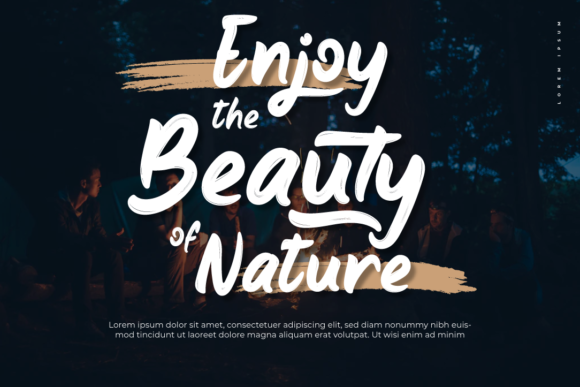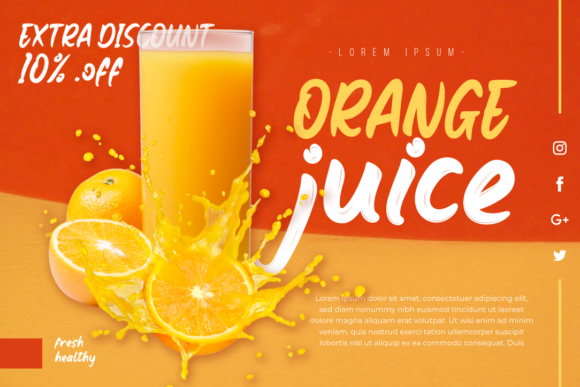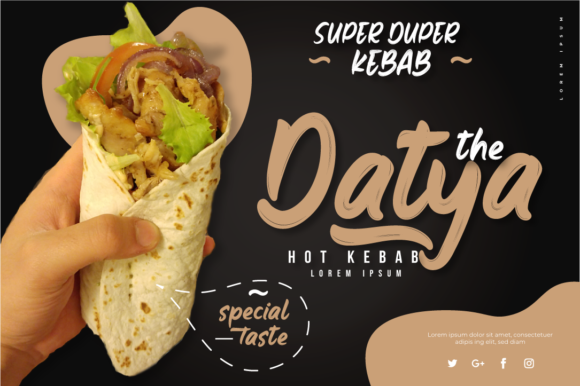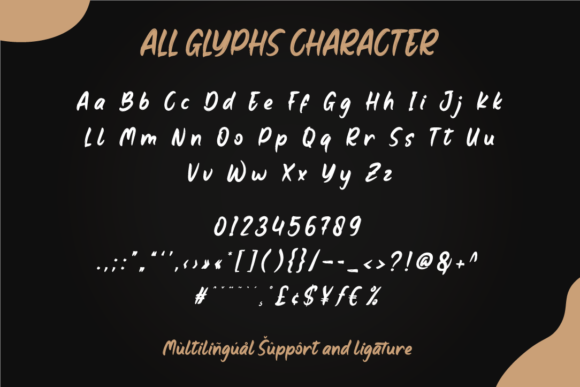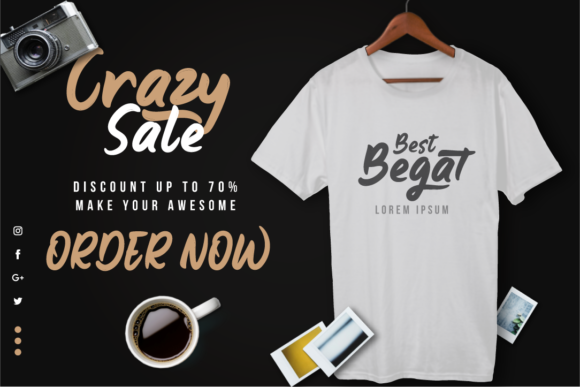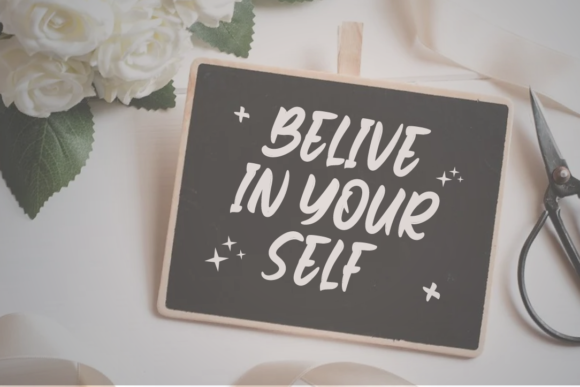
Begat Font: The Ultimate Brush Handwritten Font for Outstanding Designs
In the world of design, typography plays a crucial role in making a visual statement. A font can make or break the aesthetic appeal of a design, and that’s where Begat Font comes in. Begat is a brush handwritten font that has taken the design community by storm with its unique, original, and outstanding style. In this article, we’ll dive into the features, benefits, and uses of Begat Font, and explore why it’s a must-have for designers and crafters.
What is Begat Font?
Begat Font is a brush handwritten font that boasts a distinctive, hand-crafted look. Its unique texture and flair make it perfect for creating original and eye-catching designs. The font’s brush strokes and imperfections give it a personal, human touch that’s hard to replicate with generic fonts. Whether you’re a professional designer or a DIY enthusiast, Begat Font is an excellent choice for adding a touch of personality to your projects.
Features of Begat Font
- Unique and Original Style: Begat Font’s brush handwritten style sets it apart from other fonts. Its distinctive texture and flair make it perfect for creating original designs that stand out.
- Highly Versatile: Begat Font is great for a wide variety of design projects, including branding, advertising, posters, banners, packaging, podcasts, outdoor activities, apparel, quotes, beverages, and more.
- Easily Readable: Despite its handwritten nature, Begat Font is surprisingly easy to read, making it perfect for body text and headlines.
Benefits of Using Begat Font
So, why should you choose Begat Font for your design projects? Here are some benefits that make it a top choice among designers and crafters:
- Adds Personality to Your Designs: Begat Font’s unique style adds a personal touch to your designs, making them more relatable and engaging.
- Enhances Brand Identity: With Begat Font, you can create a distinctive brand identity that sets you apart from competitors.
- Increases Visual Appeal: The font’s texture and flair make it perfect for creating visually appealing designs that grab attention.
- Saves Time and Effort: Begat Font’s ease of use and versatility save you time and effort in finding the perfect font for your projects.
Use Cases for Begat Font
Begat Font is an incredibly versatile font that can be used in a wide range of design projects. Here are some use cases to get you started:
- Branding and Advertising: Use Begat Font to create eye-catching logos, posters, and advertisements that make a lasting impression.
- Social Media Graphics: Add a personal touch to your social media graphics, including Facebook posts, Instagram stories, and Twitter headers.
- Packaging Design: Use Begat Font to create unique and attention-grabbing packaging designs that stand out on store shelves.
- Apparel and Merchandise: Create stylish and personalized apparel and merchandise, including t-shirts, mugs, and tote bags.
Tips for Using Begat Font
To get the most out of Begat Font, here are some tips to keep in mind:
- Experiment with Different Sizes and Colors: Play around with different sizes and colors to find the perfect combination for your design.
- Pair it with Other Fonts: Combine Begat Font with other fonts to create a unique and visually appealing typography.
- Use it for Headlines and Body Text: Use Begat Font for both headlines and body text to create a cohesive and stylish design.
| Font Name | Begat Font |
| Author | Productype |
In conclusion, Begat Font is a brush handwritten font that’s perfect for designers and crafters looking to add a personal touch to their designs. Its unique style, versatility, and ease of use make it an excellent choice for a wide range of design projects. Whether you’re creating branding materials, social media graphics, or packaging designs, Begat Font is sure to make your designs stand out. So why wait? Download Begat Font today and take your designs to the next level!